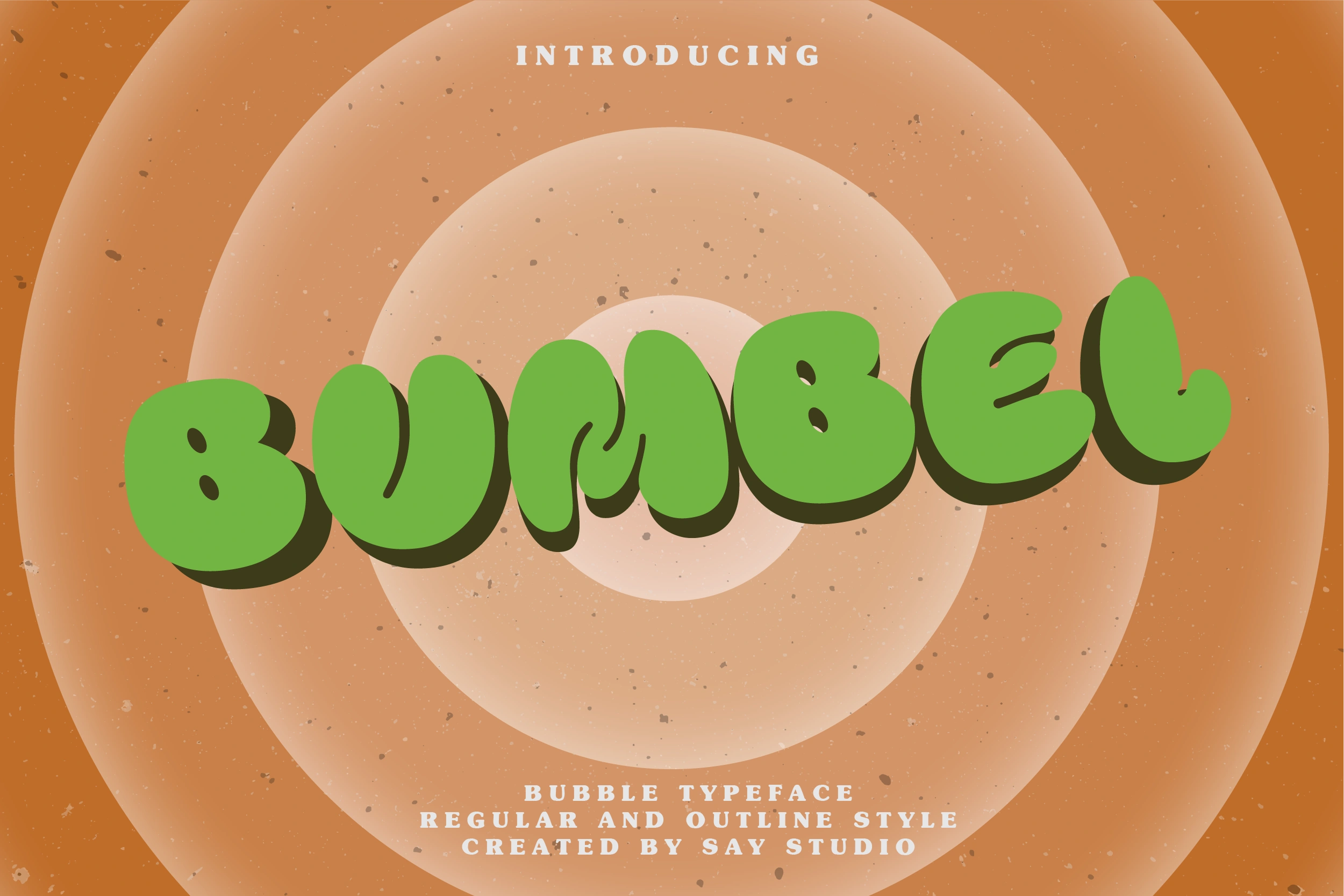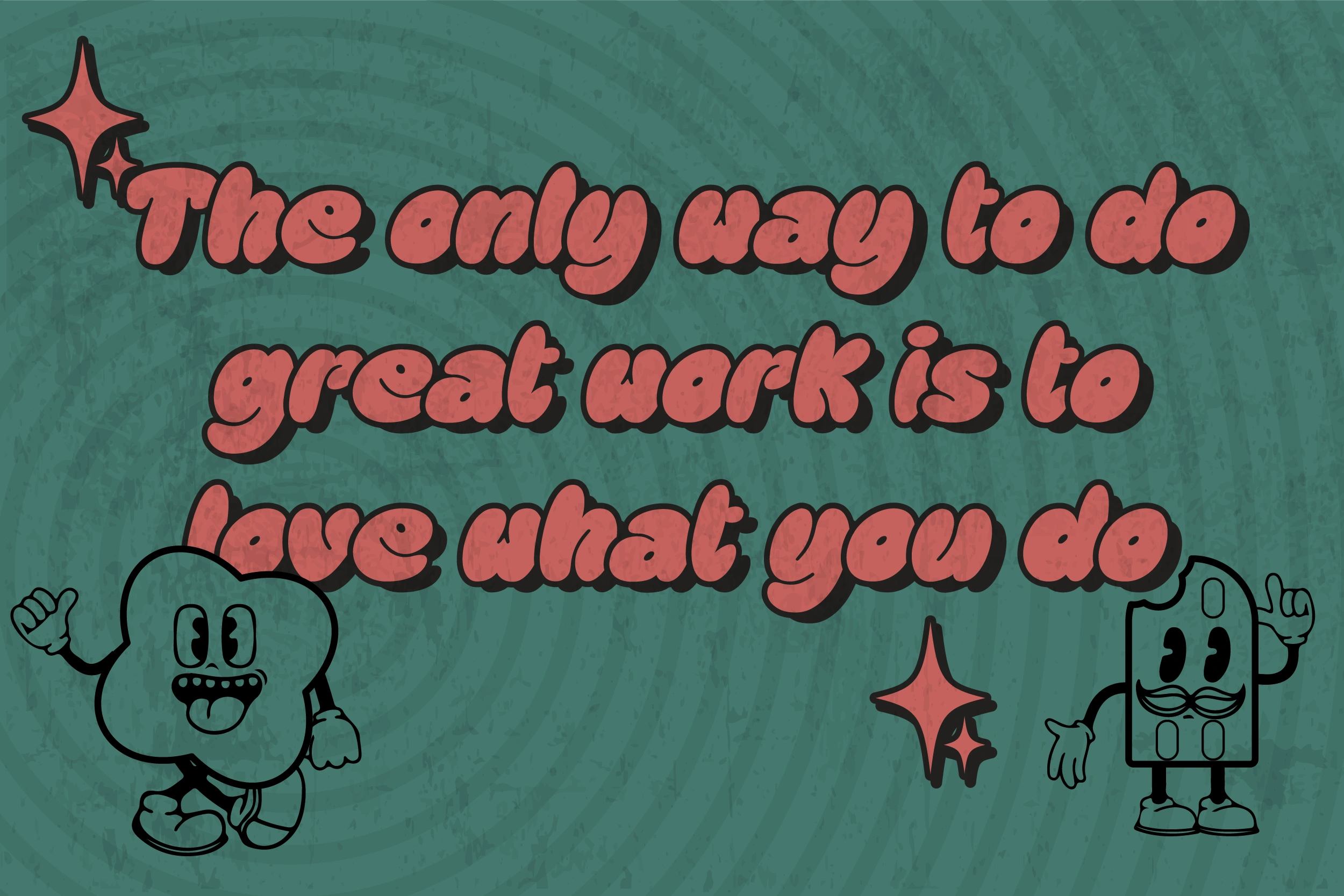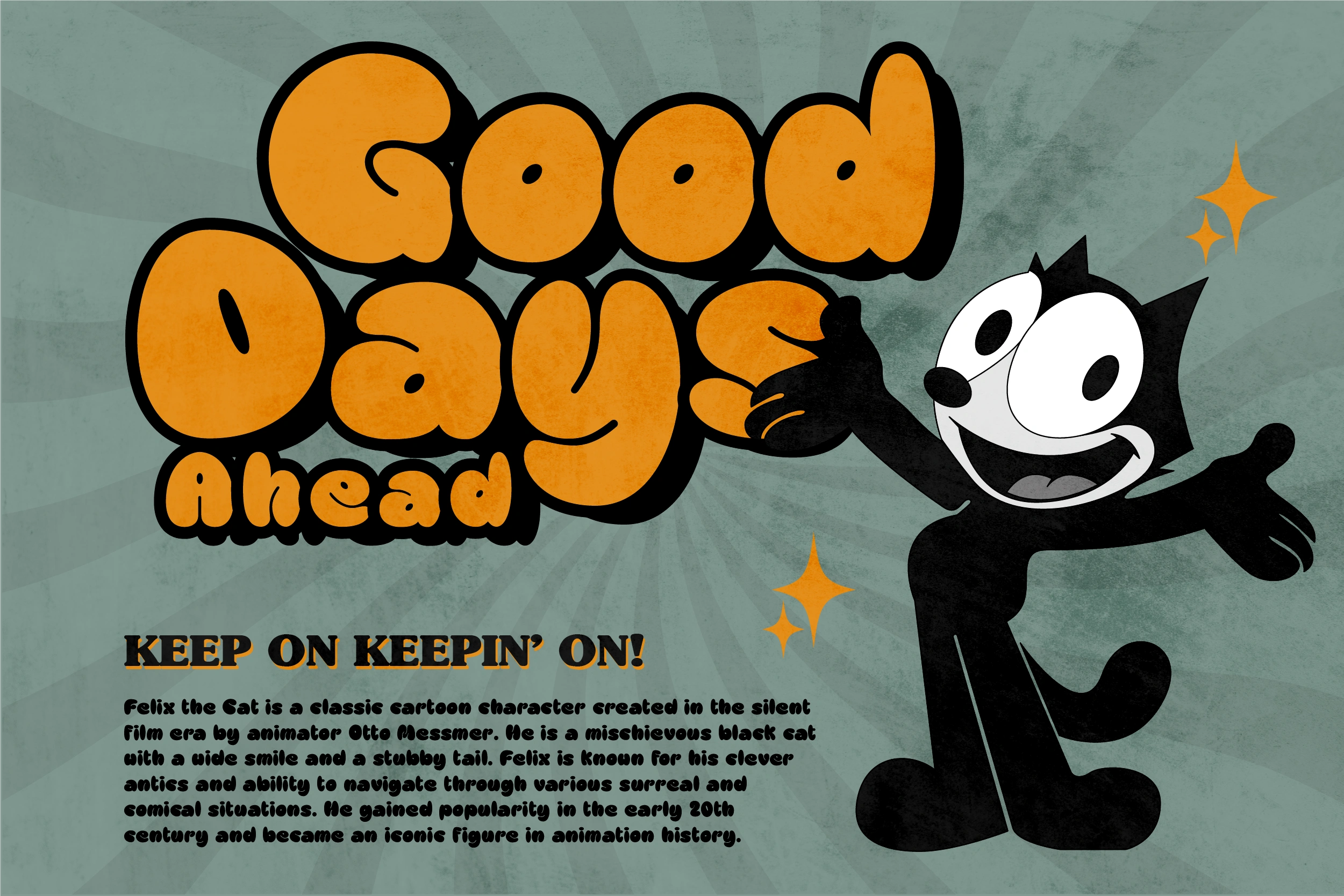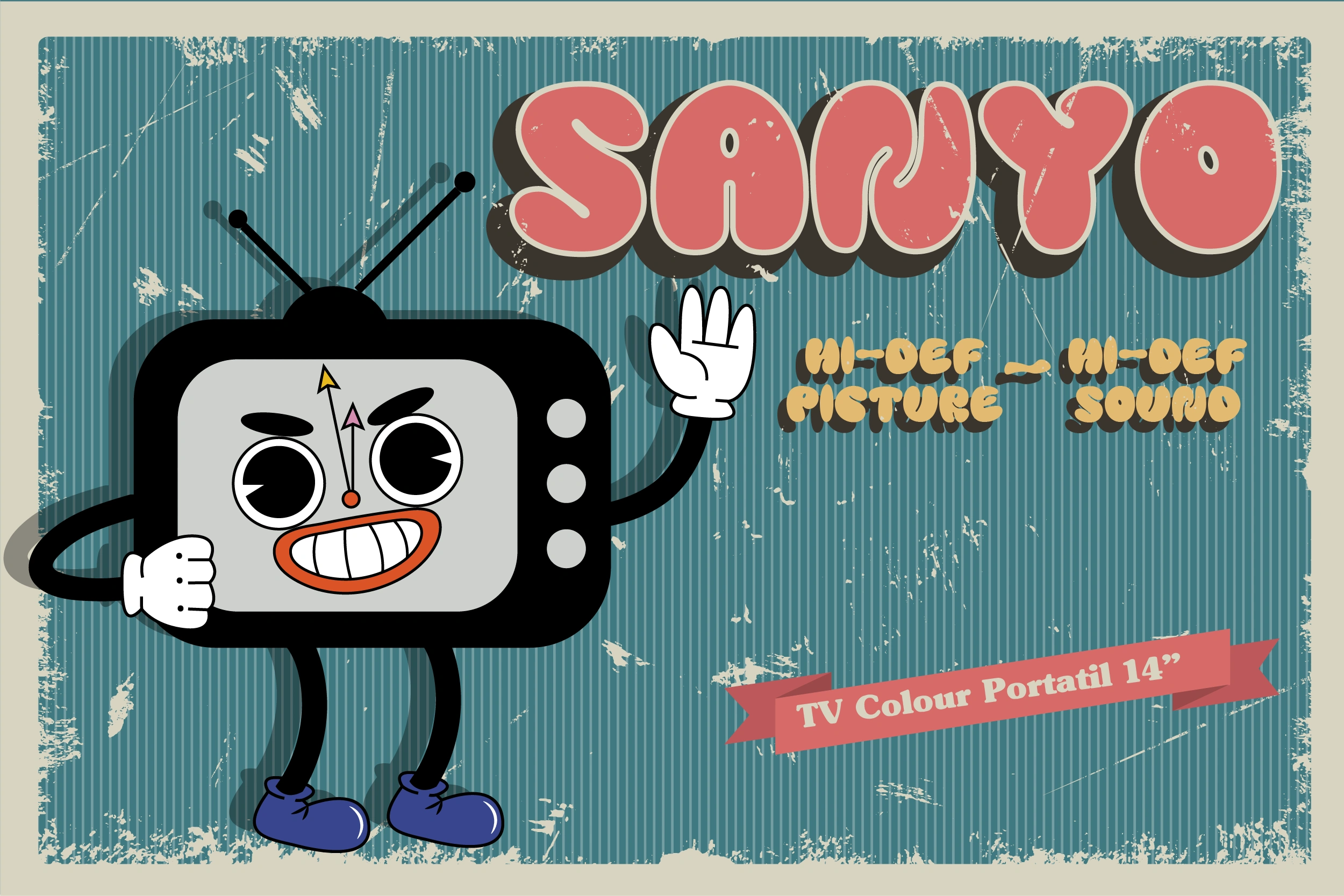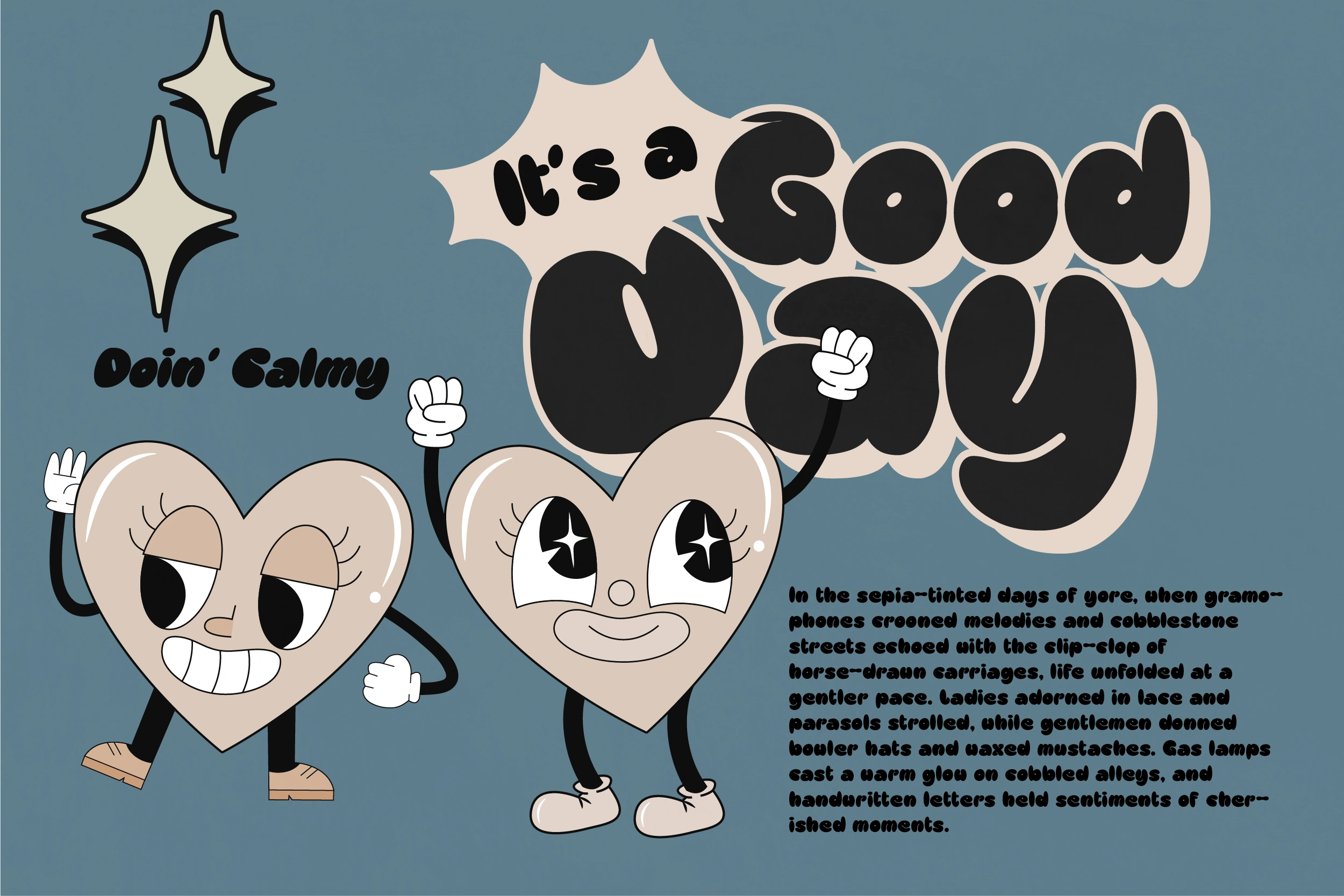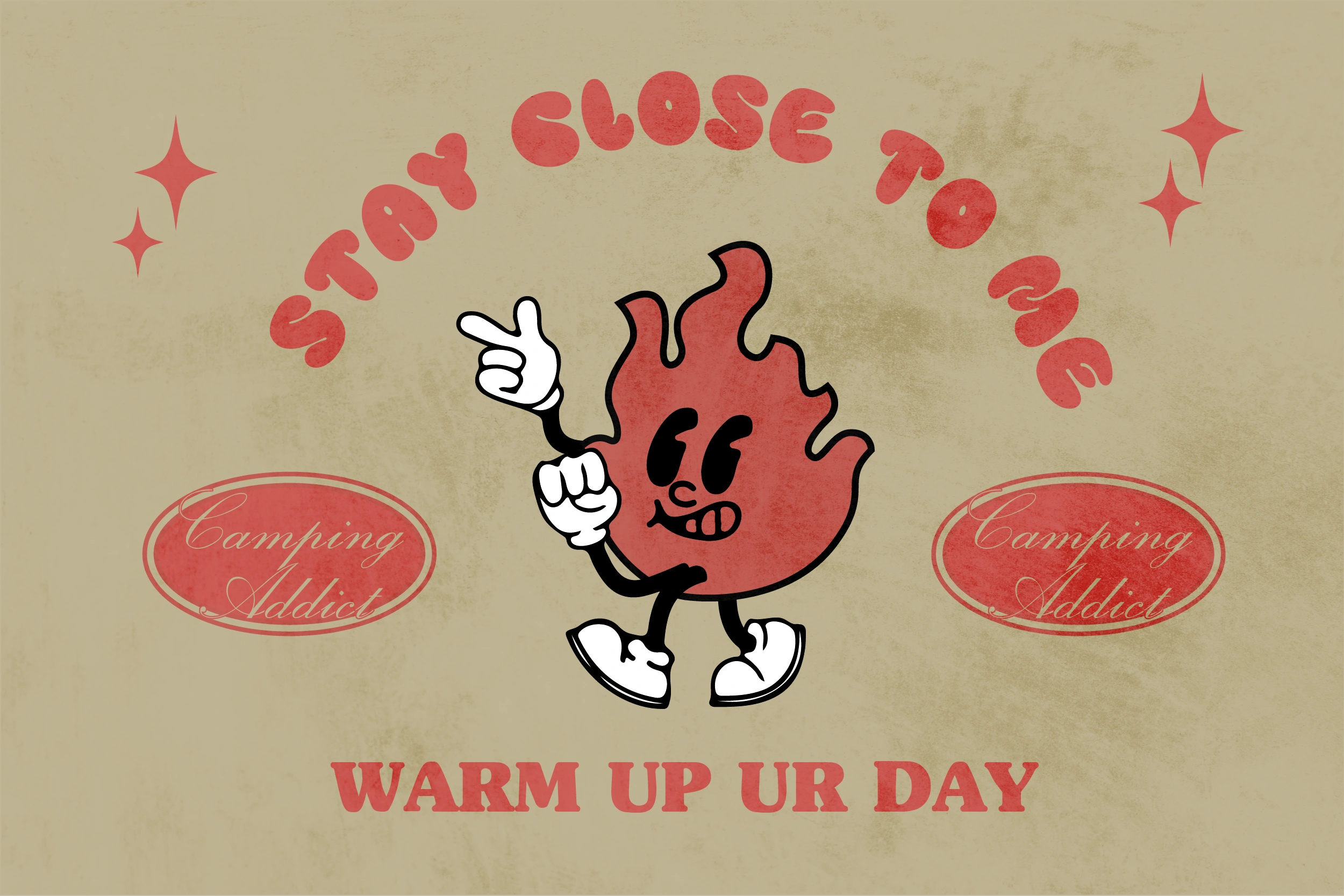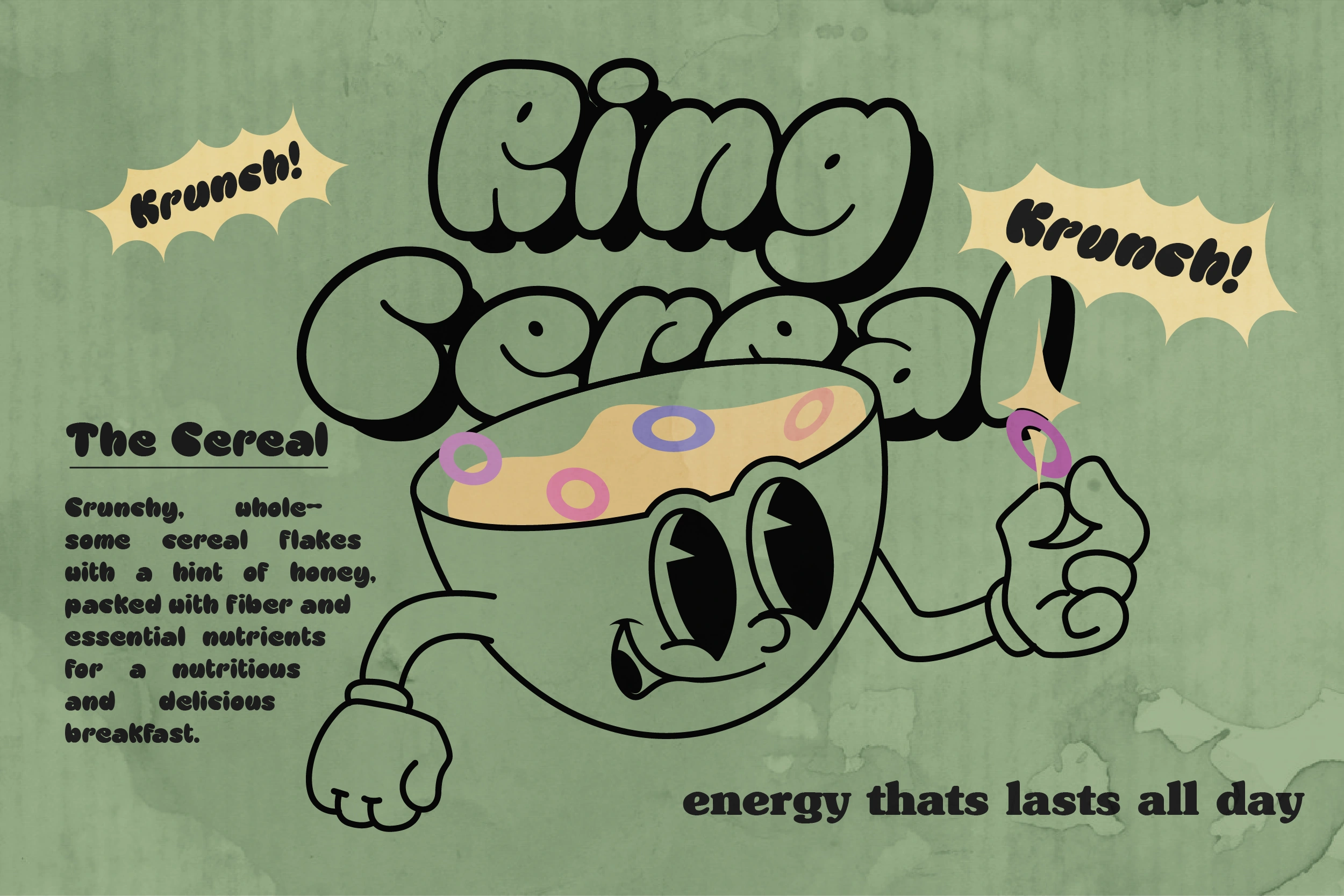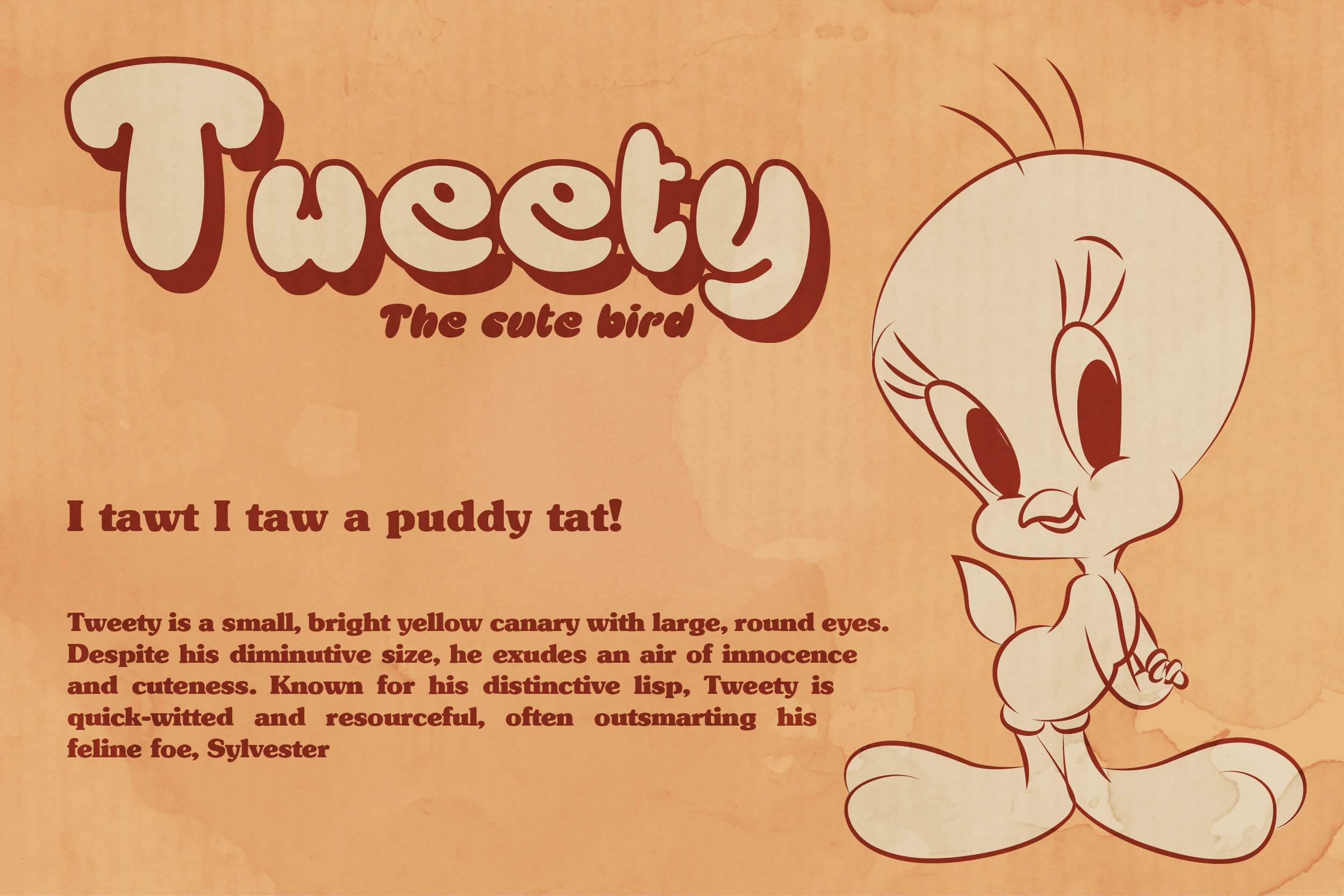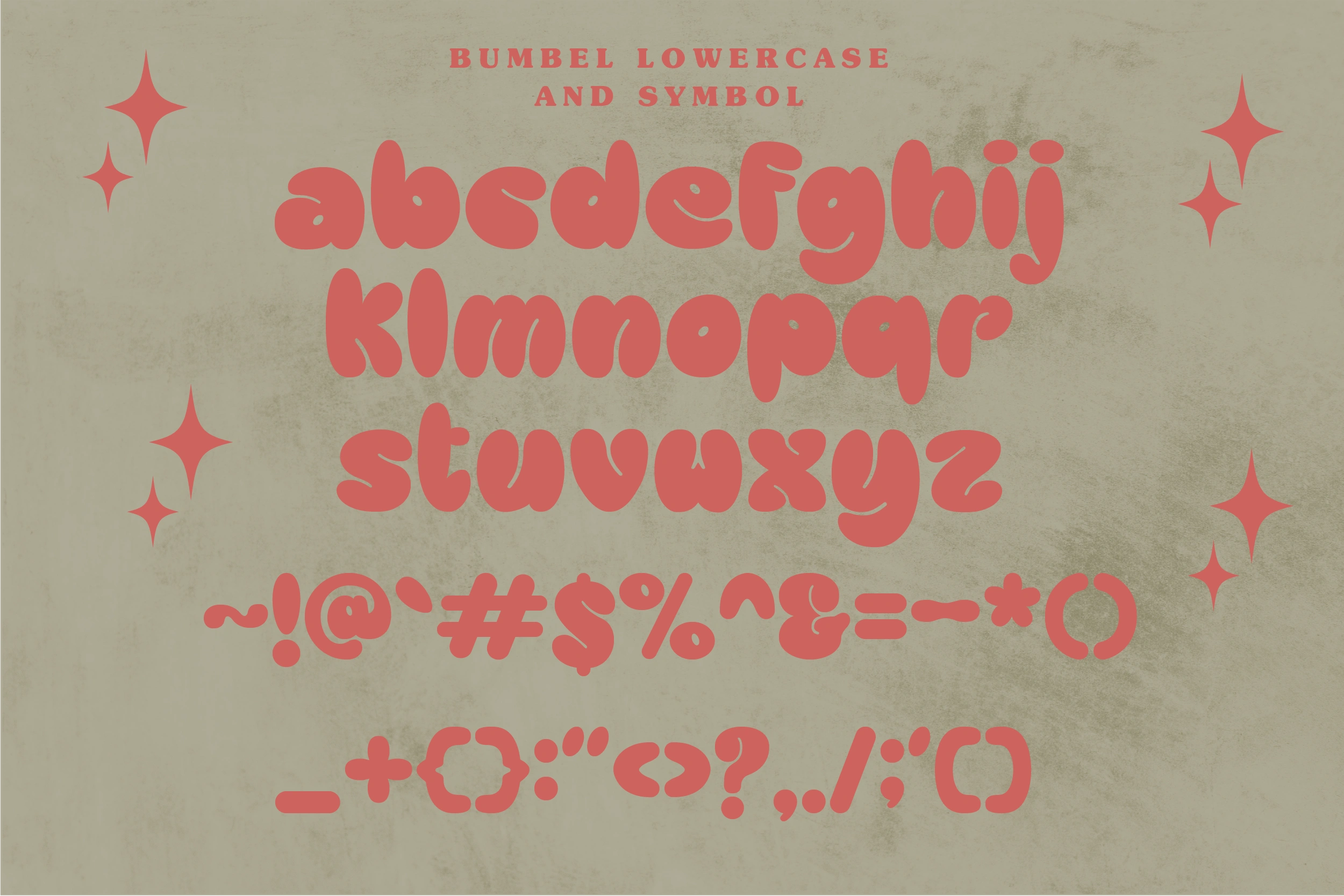
Bumbel – Bubble Font
Introducing Bumbel – Bubble Typeface
Bumbel is a captivating font that combines the essence of bubble dynamics with a modern and funky style. Its unique design exudes energy and playfulness, making it perfect for projects that require a fresh and vibrant look.
This typeface features rounded letterforms with soft edges, giving it a friendly and approachable feel. The bubbly contours of each character create a sense of movement and liveliness, capturing attention and adding a touch of whimsy to any design.
With its modern twist, Bumbel brings a contemporary edge to traditional bubble fonts. It embraces clean lines, sleek curves, and a balanced composition, making it versatile for a wide range of applications. Whether you’re designing a logo, branding materials, advertising campaigns, or social media graphics, this font will add a dynamic and eye-catching element to your project.
Bumbel have Outline Version allowing you to customize and experiment with different letter combinations. This versatility empowers you to create unique typographic compositions that truly reflect your creative vision.
Embrace the spirit of modernity and funk with Bumbel. Elevate your designs, stand out from the crowd, and infuse them with a sense of joy and energy. Let this captivating typeface be the perfect tool to express your creativity and make a memorable impact.